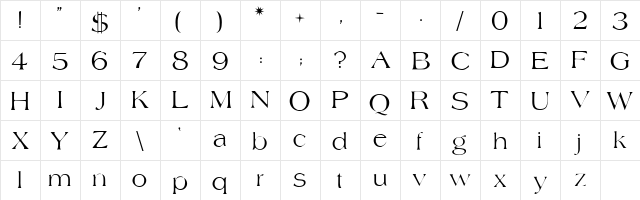
Portia Regular
Design Context for Portia Typeface
Portia is a composed and adaptable typeface that performs quietly and consistently across a wide range of design contexts.
Pro Tip: Pair Portia with a font of contrasting weight or personality to build a more expressive typographic hierarchy.